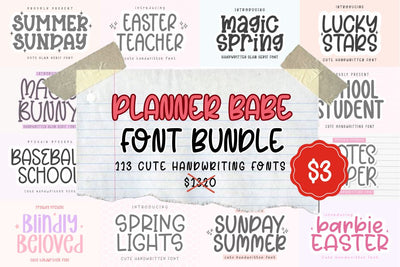
Planner Babe Font Bundle
✨ Planner Babe Font Bundle ✨
Unleash your inner planner babe with this adorable collection of cute, playful, and handwritten fonts—perfect for journals, stickers, printables, and craft projects!
113 cute & fun handwritten fonts